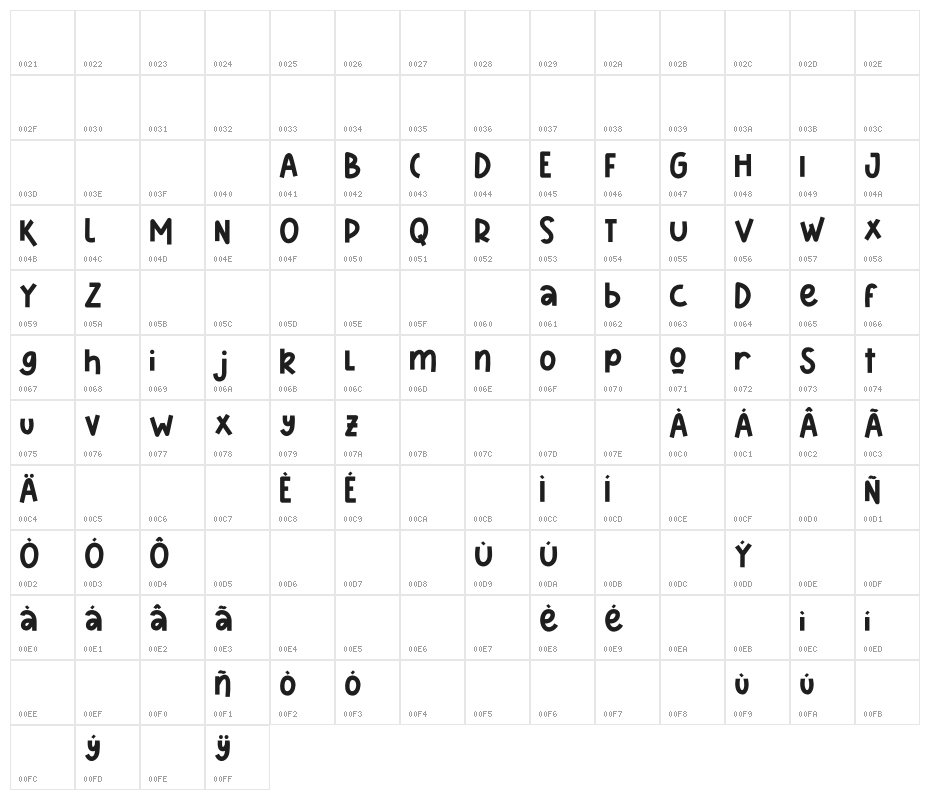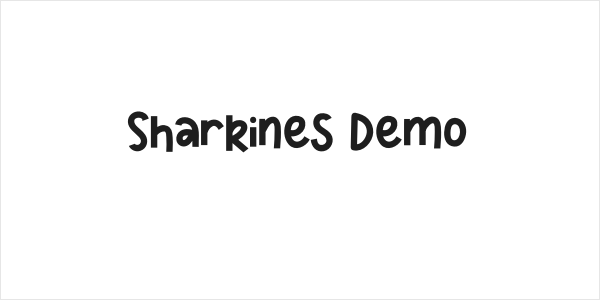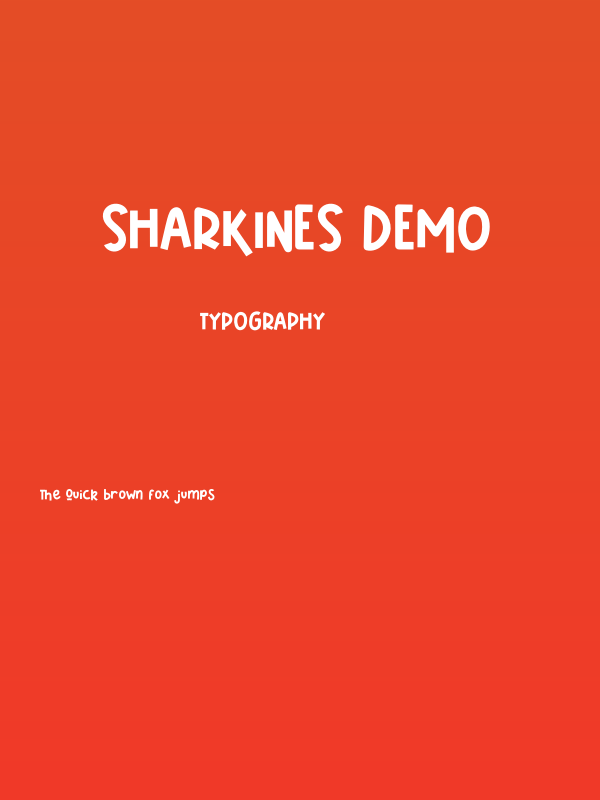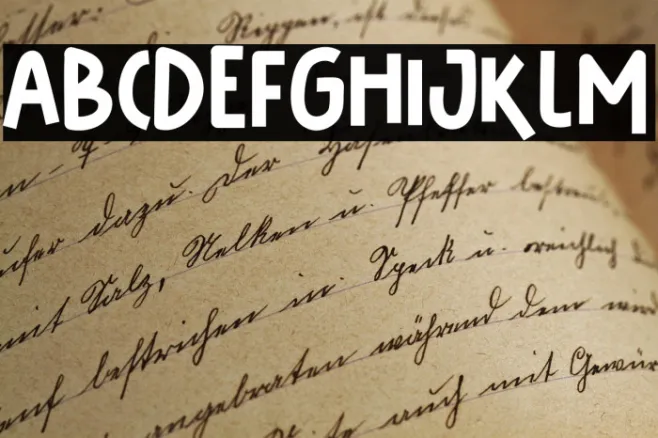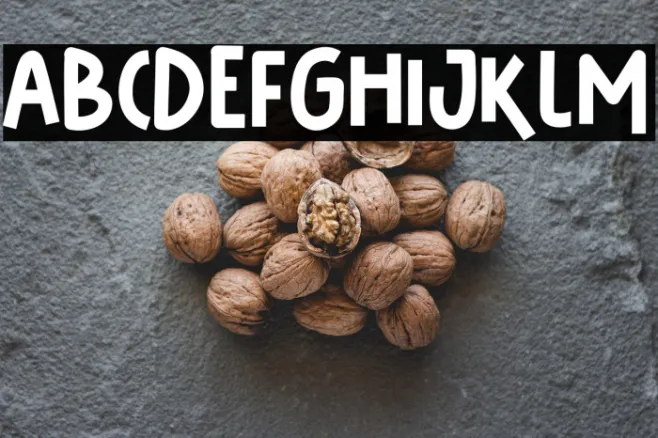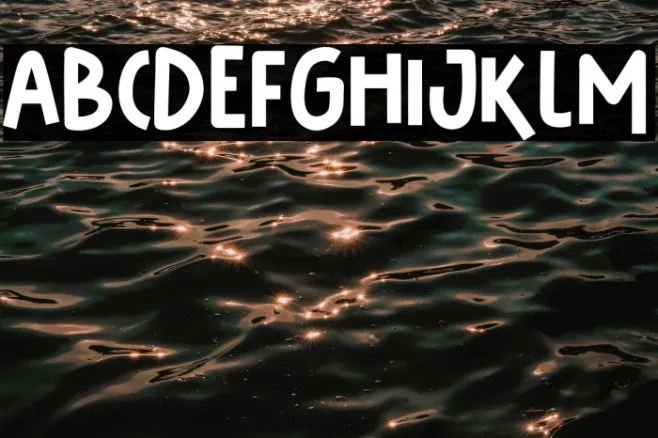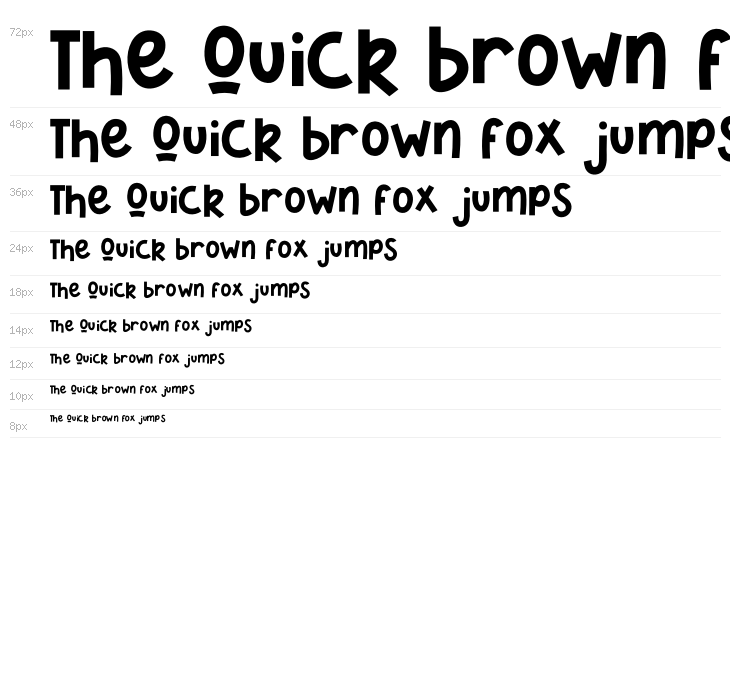
Sharkines Demo Font
Sharkines Demo Description
This font features a playful and bold style with a unique, hand-drawn appearance. The characters are slightly irregular, adding a whimsical and friendly touch. The uppercase letters are robust and prominent, while the lowercase letters maintain a consistent flow with rounded edges. The font's overall look is casual yet impactful, making it suitable for creative and informal designs. The strokes are thick, providing a strong visual presence, and the character spacing is normal, ensuring readability. This font is ideal for projects that require a fun and engaging aesthetic.
| Proposed Projects | Ideal for children's books, playful branding, posters, and creative invitations. |